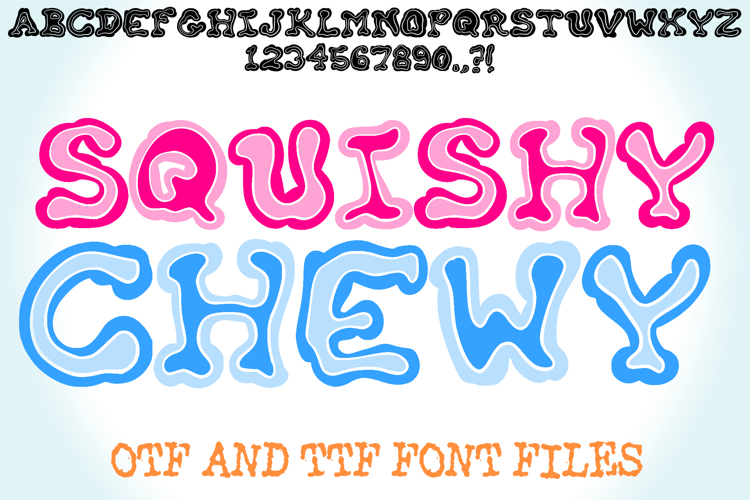
Squishy Chewy Lettering ABC Font Type Wobbly OTF
Squishy Chewy Font is a bold, bouncy, and fun display typeface inspired by gummy candy and gooey textures! Each letter looks like it’s made of squishy, stretchy candy — perfect for adding a playful, delicious touch to your projects.
This font is ideal for logos, kids’ designs, posters, party invitations, stickers, t-shirts, Cricut projects, and digital art. Its thick, rounded shapes and quirky outlines make it both eye-catching and easy to read.
Whether you’re designing for a candy shop, a kids’ brand, or a colorful creative project, this font adds that perfect touch of sweet, bubbly personality!